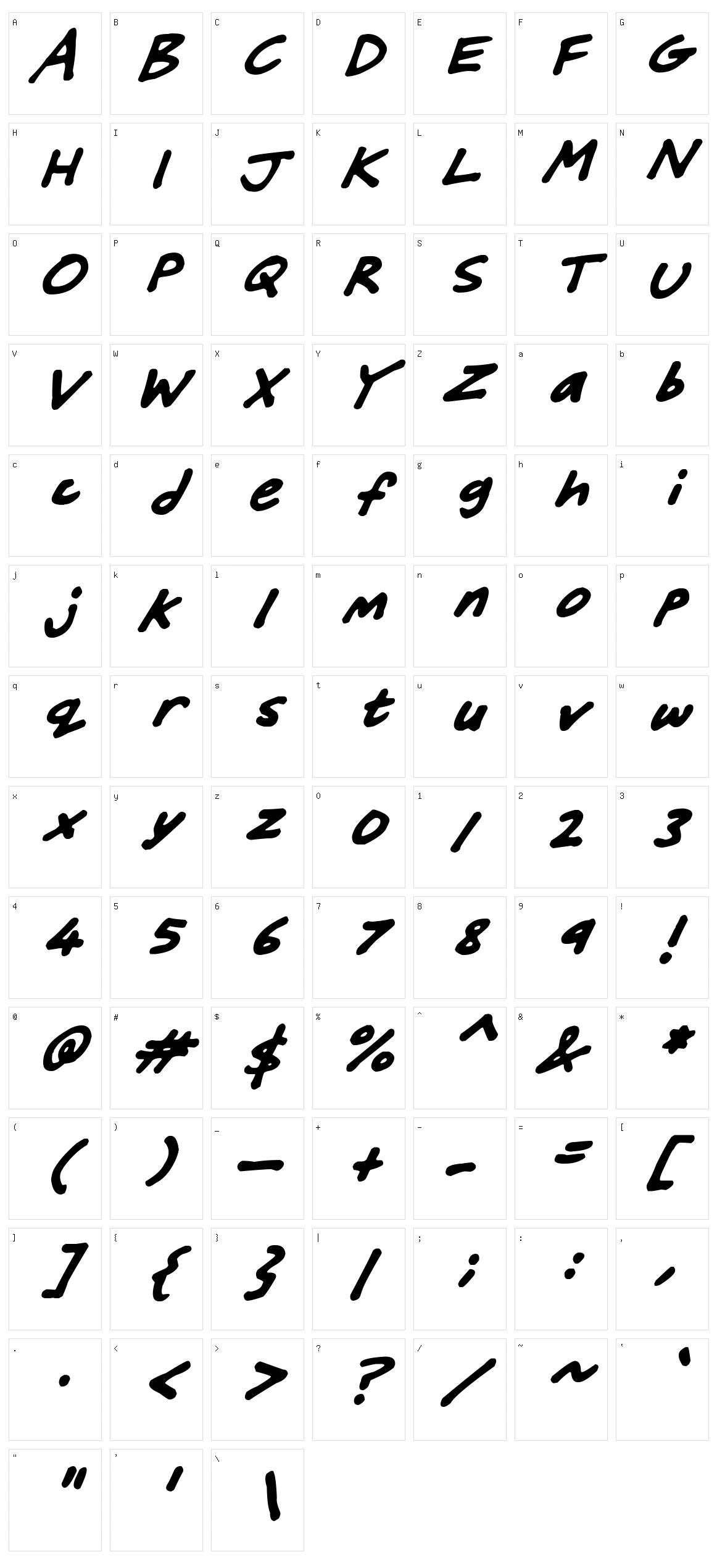
The free font Friendly Felt Tips is carefully designed by Hawtpixel, showcasing a thoughtful balance of creativity and usability and falls under the Script font style. When you download the ZIP file, it contains only 158.23 KB of font files, making it lightweight and quick to download. Please review the license details below to understand permitted usage and distribution rights. If license information is not available, we recommend using this font for personal projects only or contacting the author directly for commercial usage permissions.